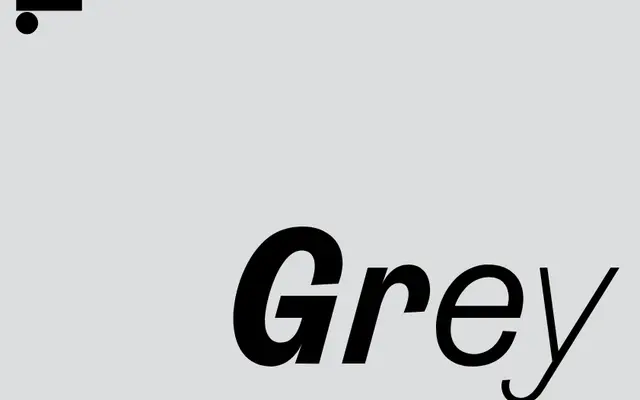
LL Grey
Lineto · Aurèle Sack · 2018
LL Grey specimen from Lineto
A French grotesque revival by Aurèle Sack that widens the idiosyncratic proportions of 19th century grotesques into a screen-friendly text face.
Originating as Sack's ECAL diploma project in 2004 under the name AS Gold, LL Grey was refined and extended for release by Lineto in 2018. It carries the characteristic rude stroke endings of the French grotesque genre while achieving a contemporary readability suited to on-screen use. The family has since grown to include Greek, Cyrillic and a monospaced variant, with script extensions produced in collaboration with Viktoriya Grabowska and Panos Haratzopoulos.
Lineto describe it as a sans serif born of a French grotesque, with the stroke endings characteristic of that genre; it draws formal cues from 19th century grotesque proportions, placing it squarely within that subcategory.